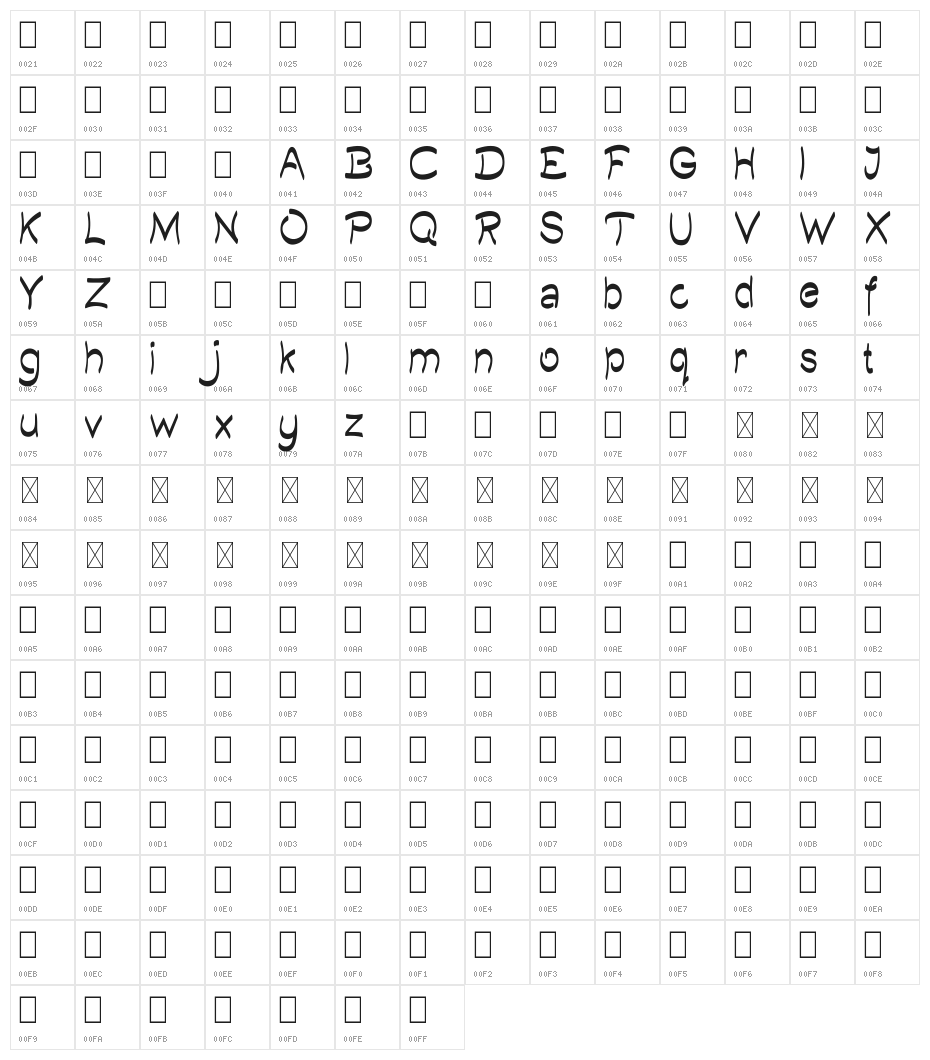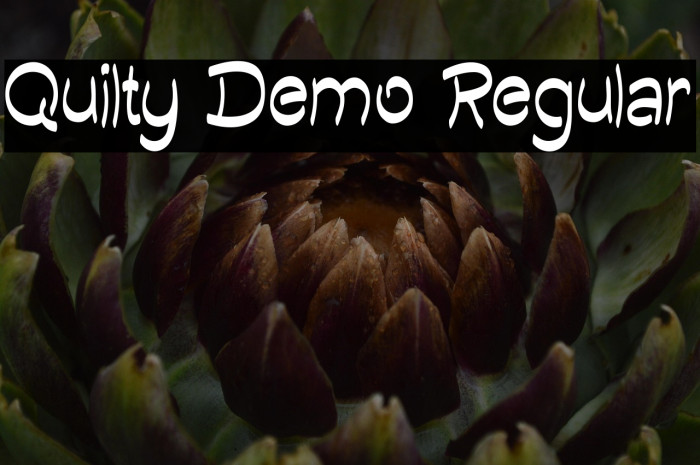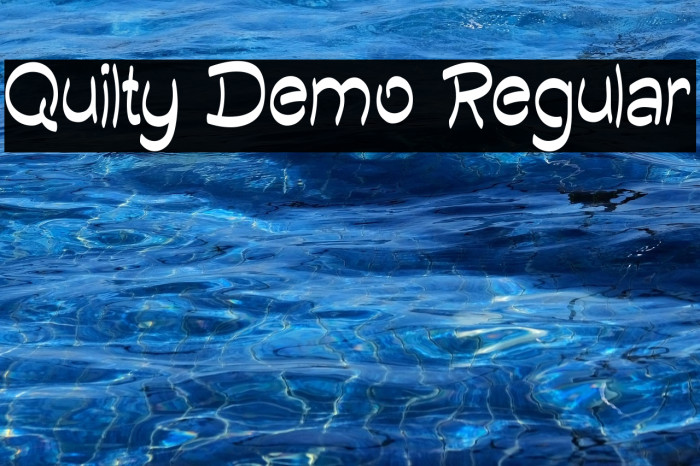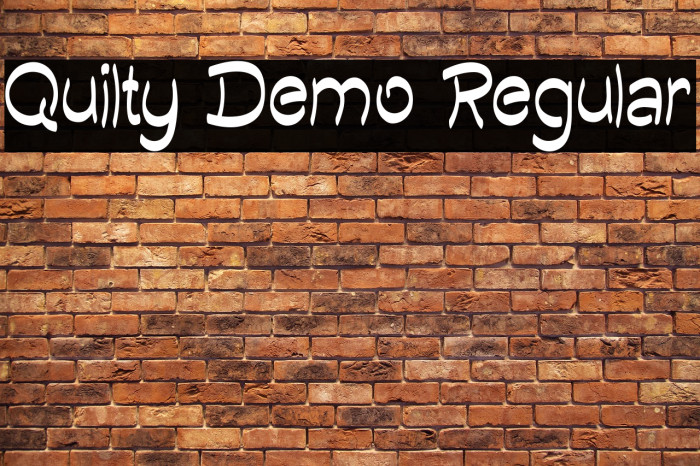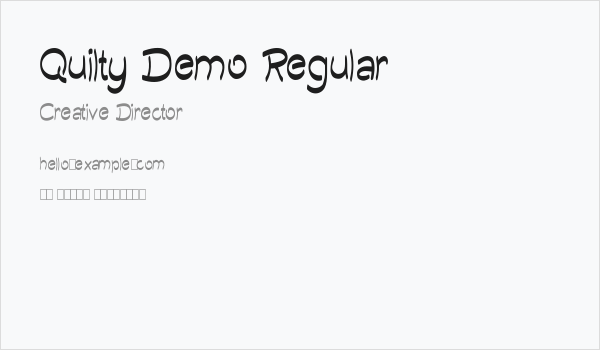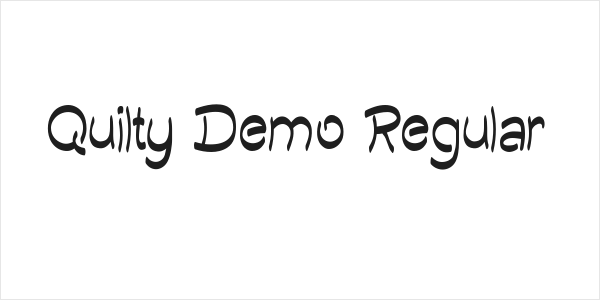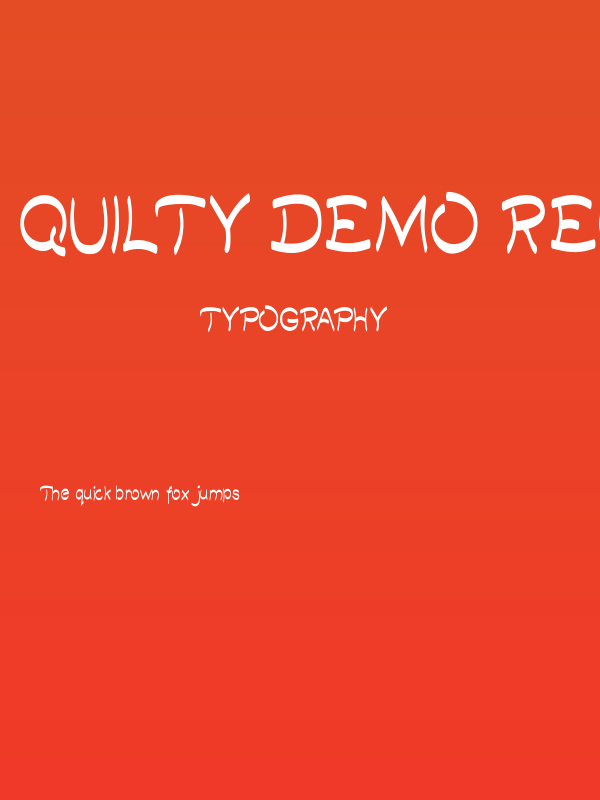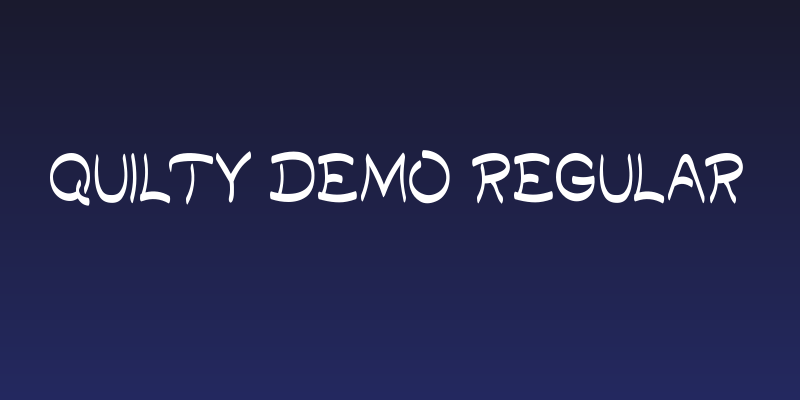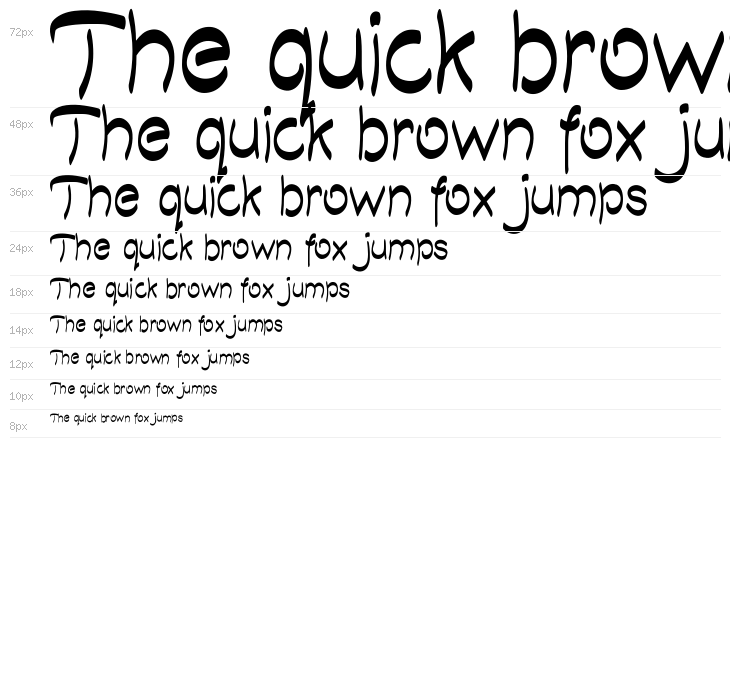
Quilty Demo Regular Font
Quilty Demo Regular Description
This font features a playful and whimsical design, characterized by its unique and irregular stroke patterns. The letters have a hand-drawn quality, with varying thicknesses that add a dynamic and lively feel. The uppercase and lowercase letters maintain a consistent style, with rounded edges and a slightly tilted appearance, giving the font a casual and friendly look. The absence of sharp angles and the presence of smooth curves make it visually appealing and approachable. The font's distinctive style is further emphasized by its irregular baseline, which adds to its charm and individuality.
| Use Case | Logos, Posters, Greeting Cards |